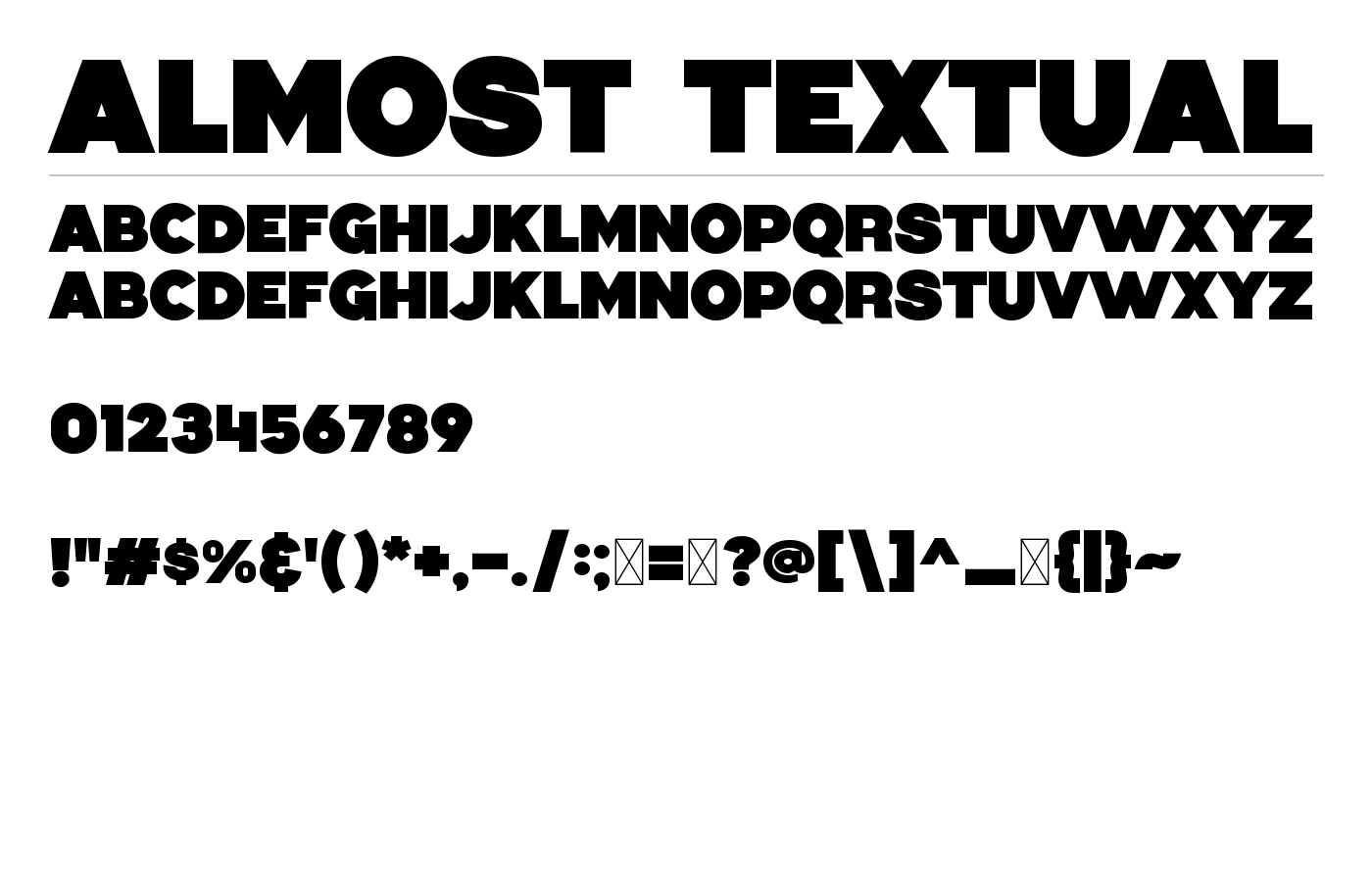
Almost Textual is a bold, geometric sans serif font with a strong, compact appearance. Its heavy weight and wide letterforms combine with simple, clean strokes to create a powerful and modern style well suited for impactful headlines, logos, and branding that need to convey confidence and clarity. This font's sturdy presence and straightforward design make it ideal for attention-grabbing display use where readability and strength are key.
Almost Textual Font
About Almost Textual Font
| Font family | Almost Textual Font |
| Designer | Usman Albaehaqi |